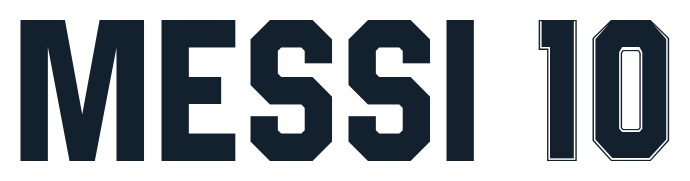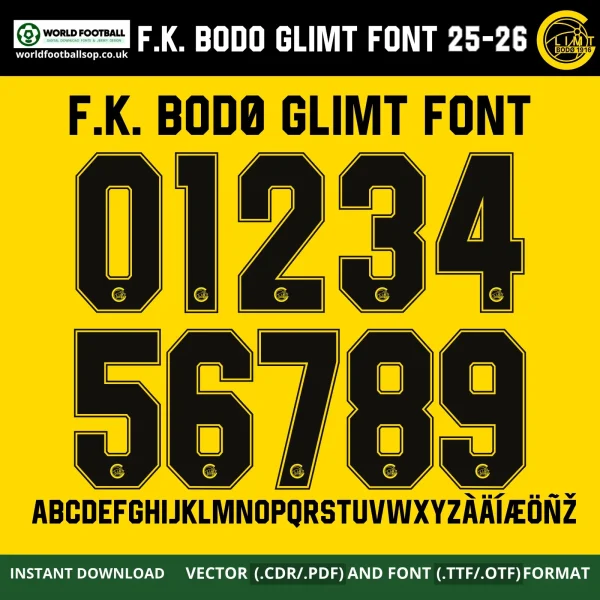
F.K. Bodø Glimt Font 2025-2026 UCL - Arctic Yellow European Look
The F.K. Bodø Glimt Font 2025-2026 UCL pack is inspired by the sharp, geometric lettering worn by Bodø/Glimt in their Champions League and European nights. The numbers are tall octagons with straight edges and subtle inner chamfers, filled in deep black and framed by double yellow keylines to match the club’s classic all-yellow Puma kits. On your covers the type sits against a pure yellow backdrop with the circular Bodø/Glimt crest in the corners, capturing the club’s striking northern identity.
This font is made for kit printers, collectors and designers who want genuine Bodø Glimt 25-26 UCL namesets without needing official artwork. The vector numbers include a small Bodø/Glimt badge at the base, ideal for replica jerseys or detailed posters, while the TTF/OTF fonts are simplified for standard graphic use. Use it to set “HAUGE 10”, Champions League score graphics, or custom names with Football Kits for fans of Norway’s Arctic club.
Full uppercase A-Z alphabet plus Nordic characters (Å, Ä, Æ, Ø, Ñ, Ž, etc.) for authentic Norwegian and European player names.
Numbers 0-9 in black with yellow double outline, ready for home, away or third kit printing.
Design highlights
Northern edge: Angular octagon shapes and double outlines give the font a rugged, modern look that fits Bodø/Glimt’s bold yellow identity.
European-ready: Works perfectly on UCL-style nameplates, numbers and scoreboard graphics for Champions League and continental fixtures.
Club crest integration: Vector digits include a Bodø/Glimt badge at the foot of each number, echoing match-worn shirts.